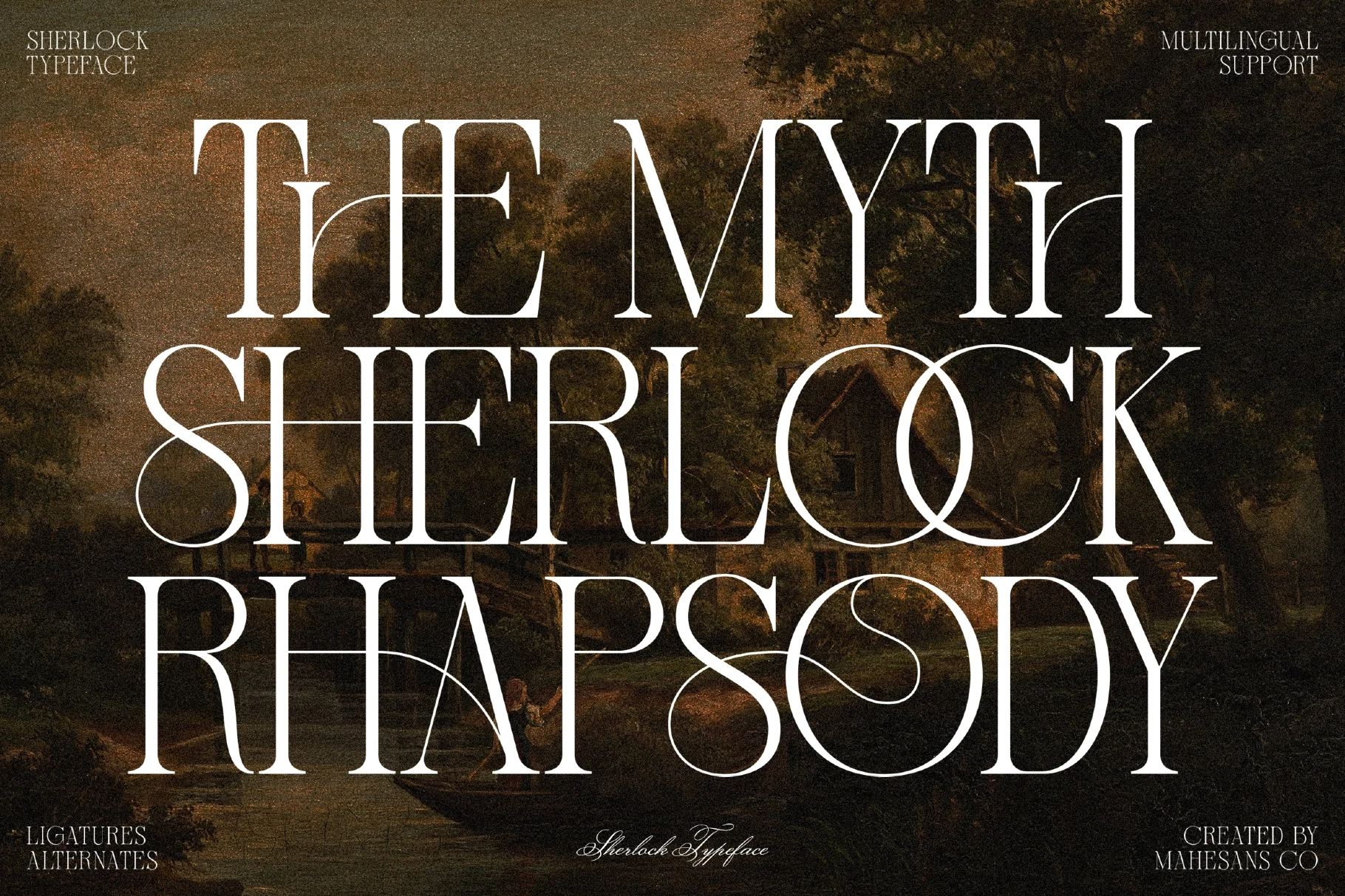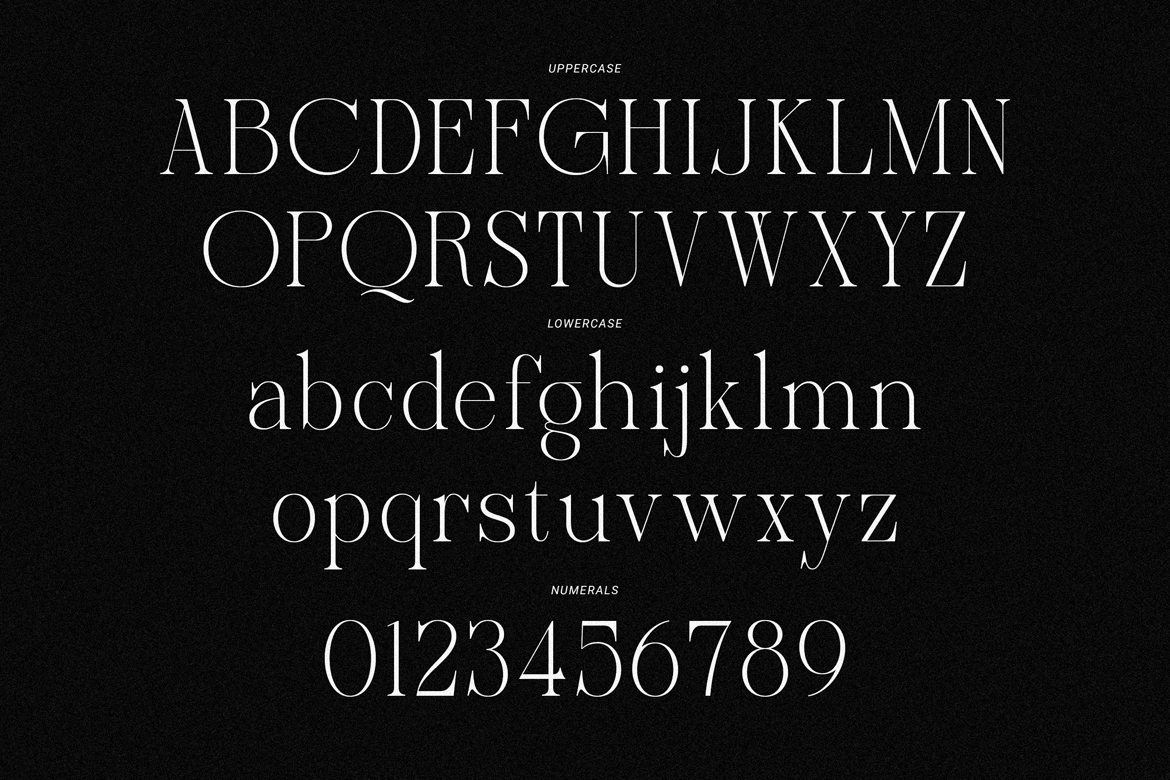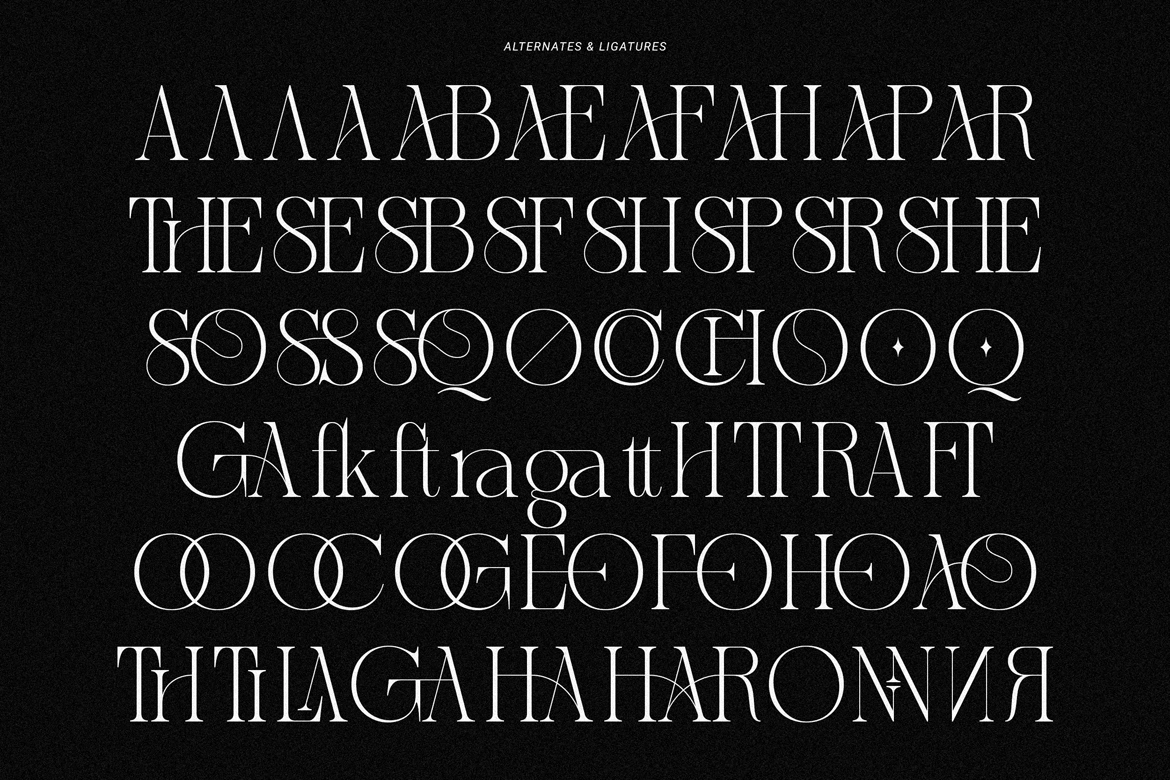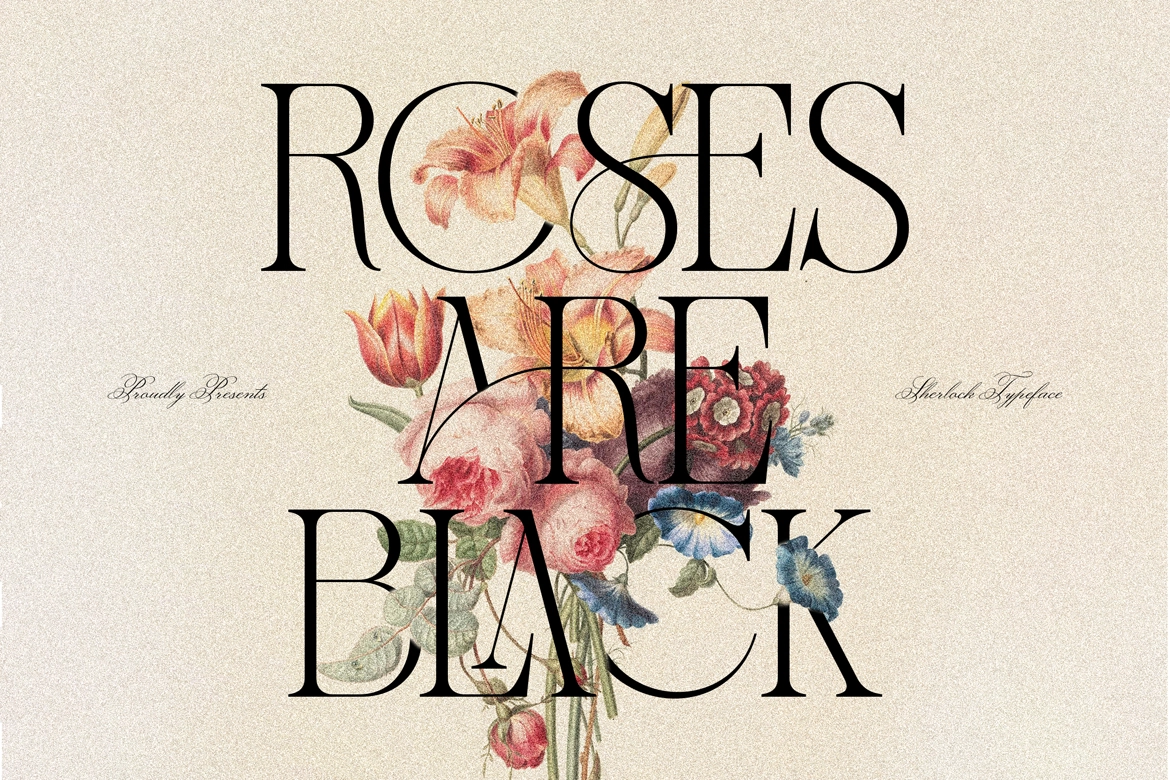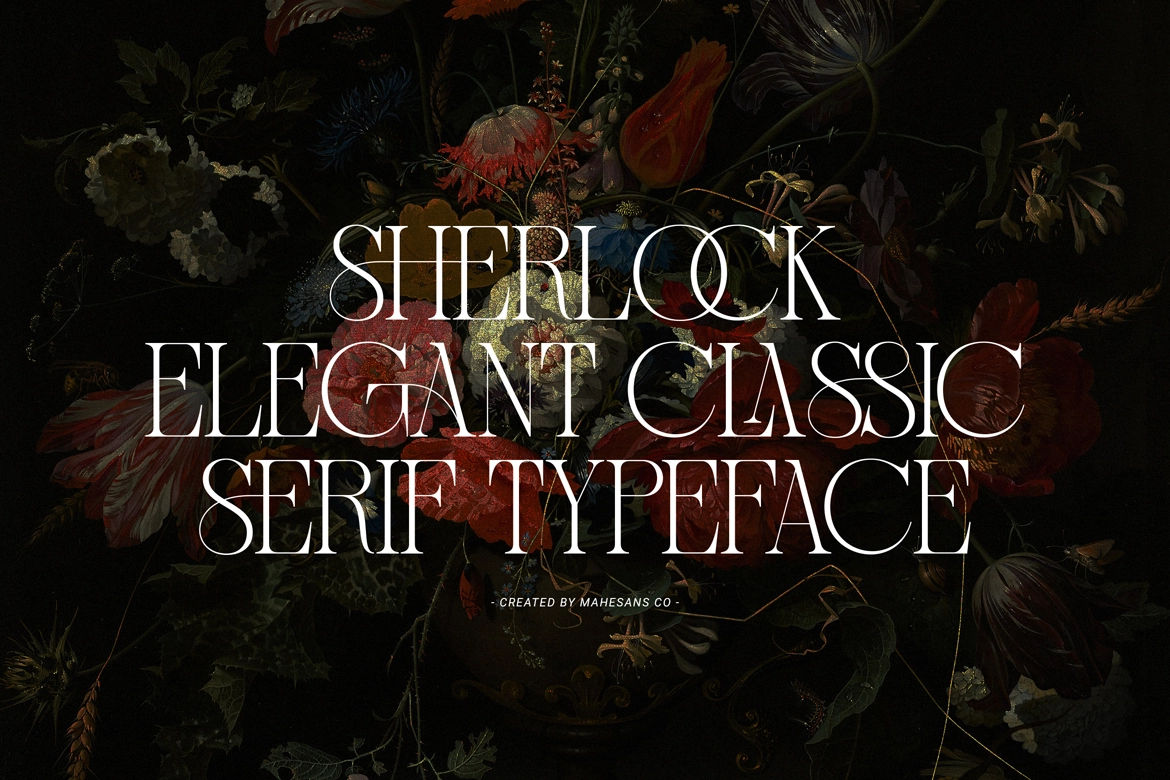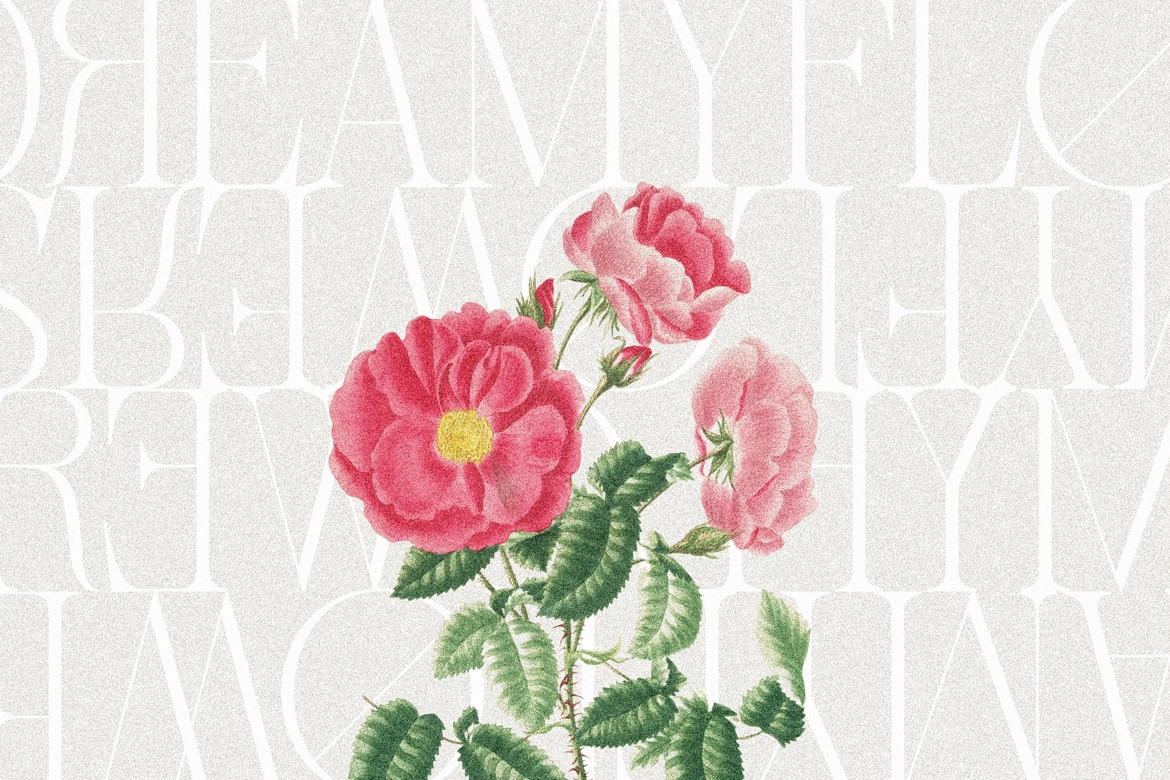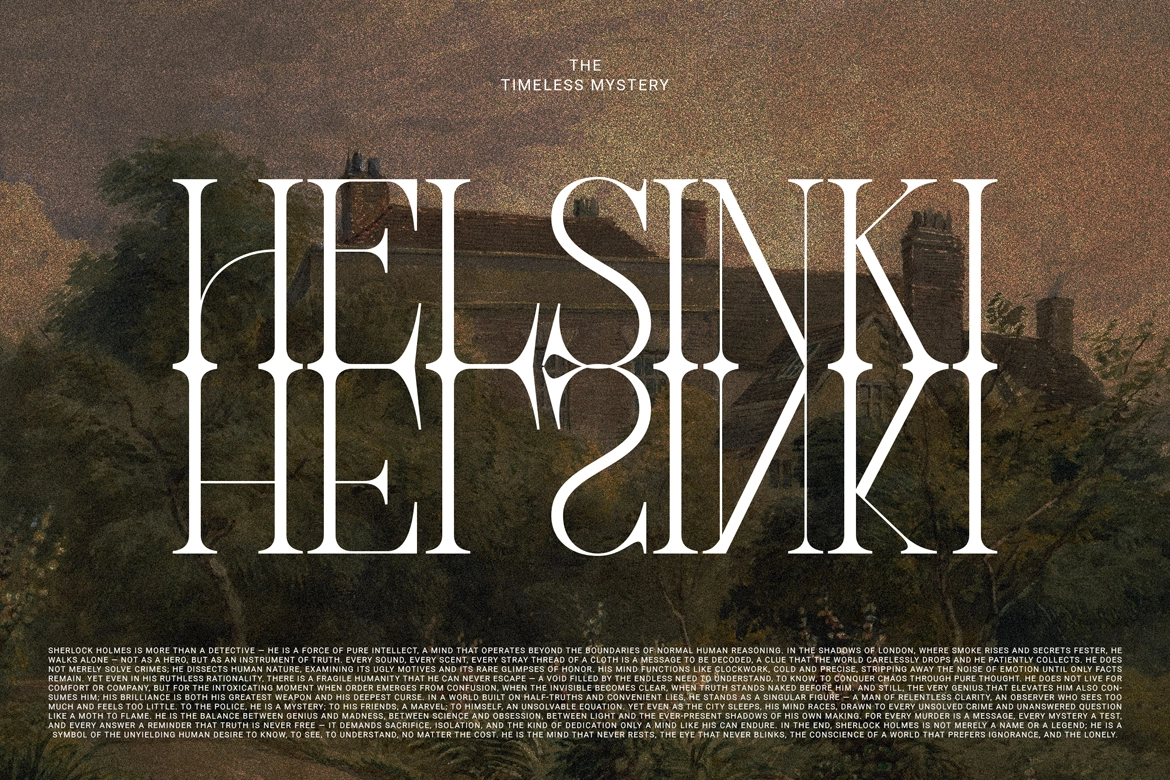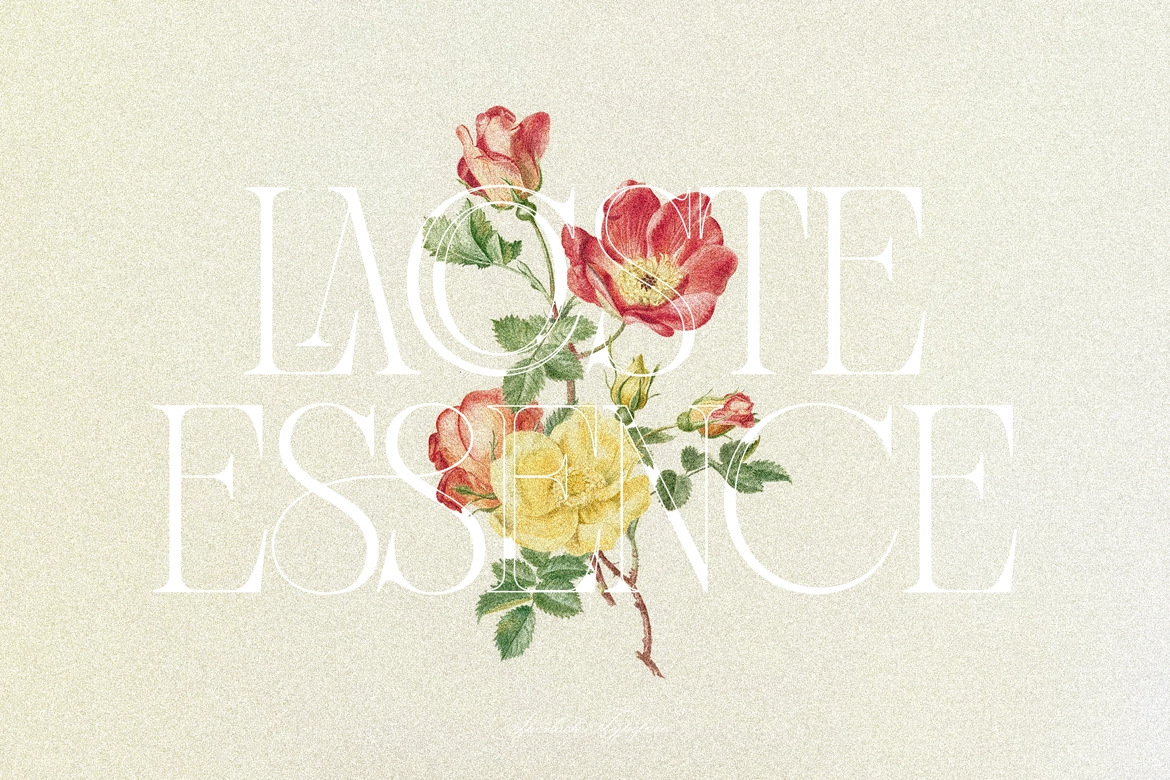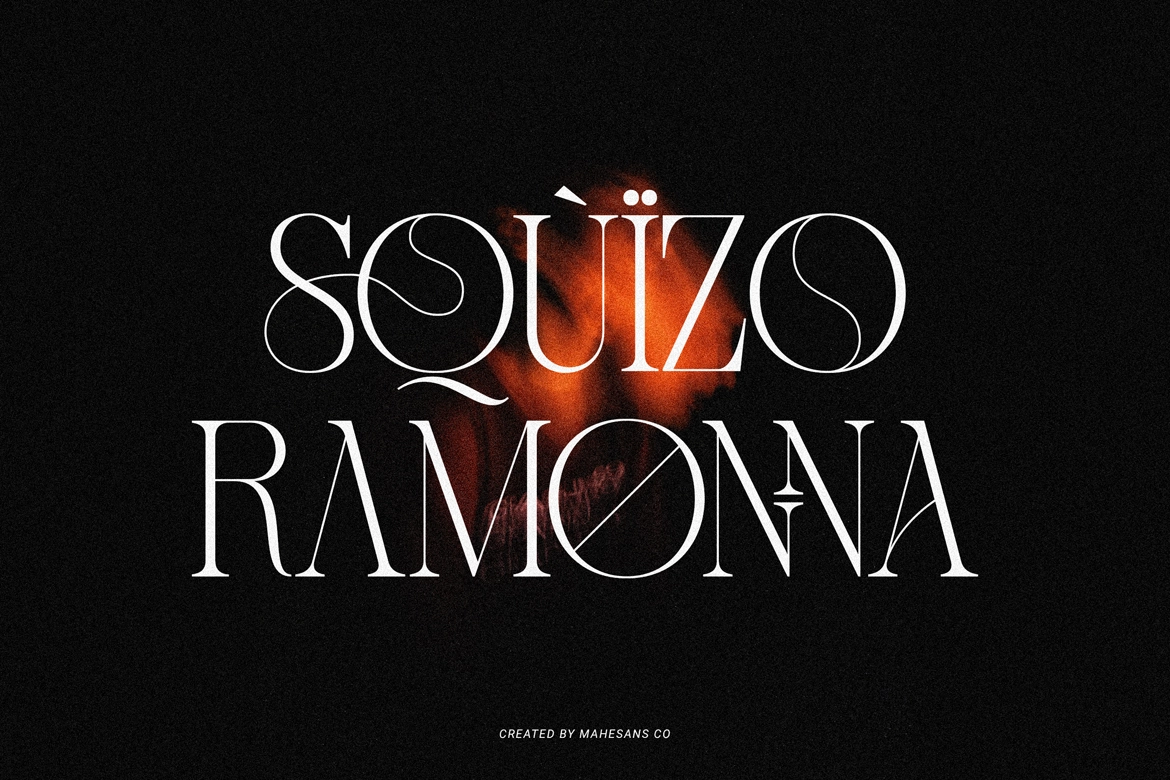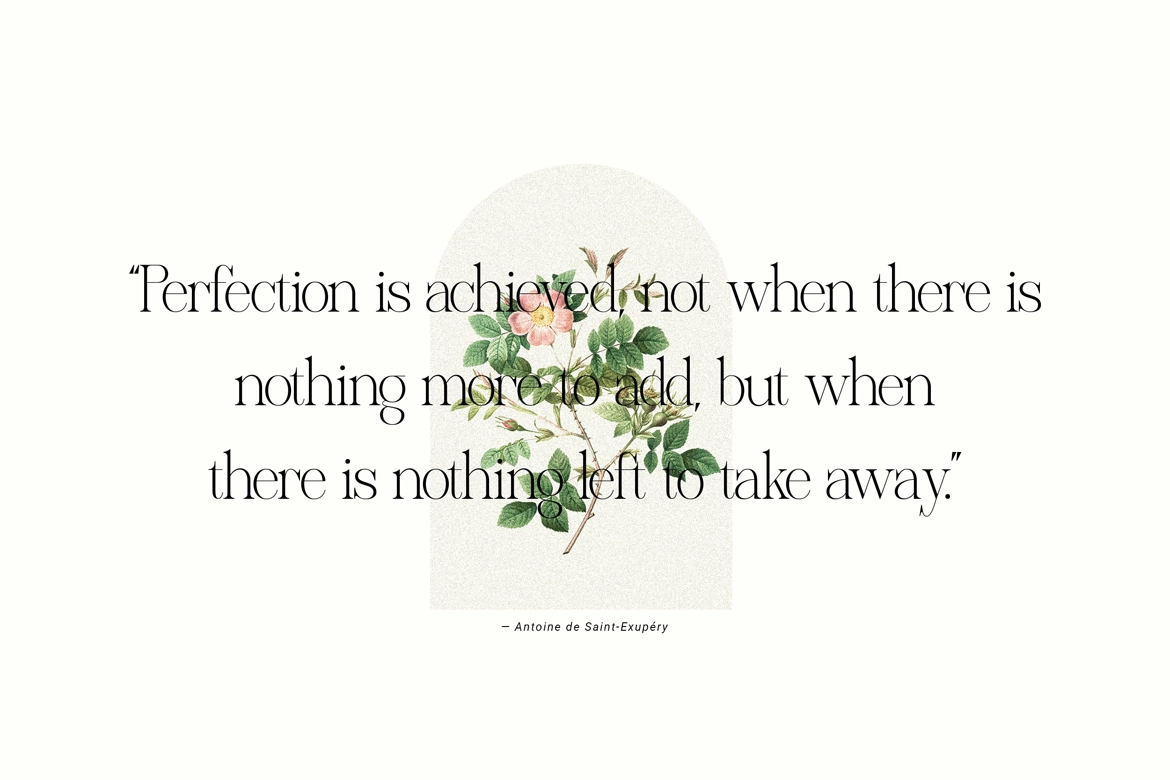
Sherlock – Elegant Classic Serif Font
This elegant serif font is refined, dramatic, and sharply dressed without being stiff. Fine hairlines, high-contrast strokes, sculpted curves, and ornate ligatures give it a classic editorial character with a literary edge.
Sherlock is a strong fit for luxury branding, fashion editorials, book covers, wedding invitations, perfume packaging, boutique logos, art posters, restaurant identities, magazine titles, gallery announcements, wine labels, and cinematic title cards.
• Numerals & Punctuation
• Alternates & Ligatures